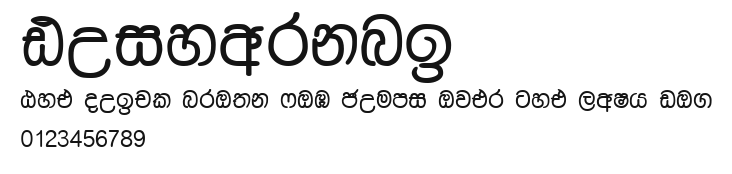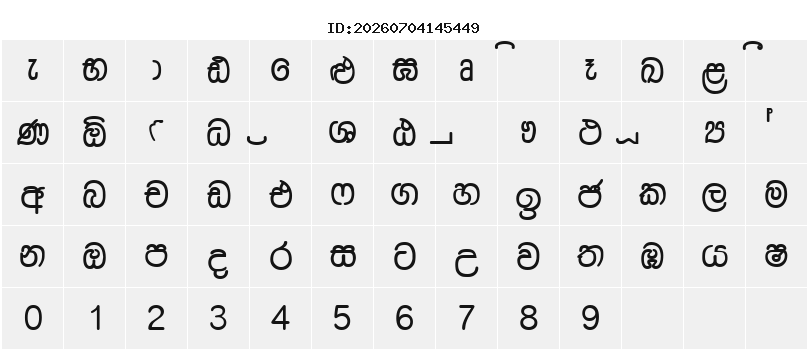
• Font Name: Dusharnbi
• Designer: Rich Gast
• Manufacturer: GreyWolf WebWorks
• Description: A font of Sinhala, the native language of Sri Lanka, for use with a standard English keyboard.
Dusharnbi.ttf is a modern, elegant sans-serif font designed for ultimate readability and visual harmony. Perfect for branding, headlines, web design, and print materials.